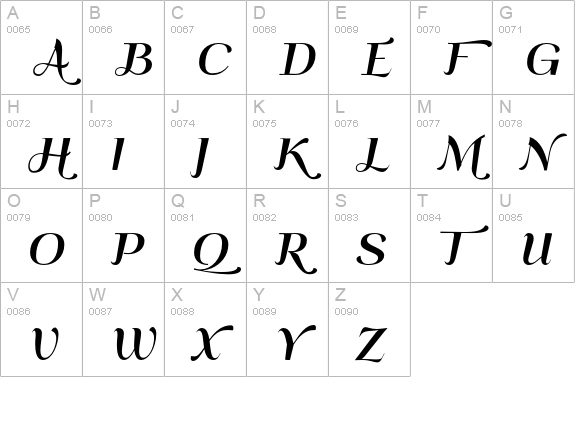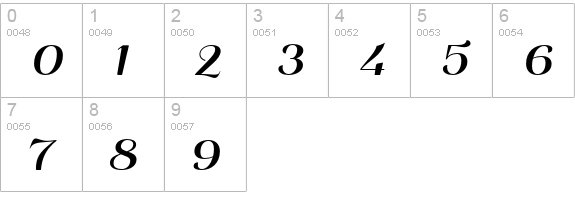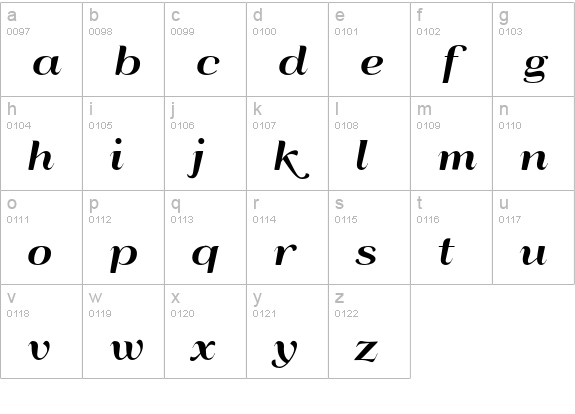
QumpellkaNo12 is a captivating and versatile font that effortlessly combines elegance and playfulness. Its unique design features bold and intricate letterforms, making it perfect for adding a touch of distinction to any project. This free font is a true gem, offering a wide range of possibilities for designers, creatives, and enthusiasts alike. With its smooth curves, balanced proportions, and attention to detail, QumpellkaNo12 brings a sense of sophistication and charm to any typographic composition. Whether you're designing a logo, creating eye-catching headlines, or crafting invitations for a special event, QumpellkaNo12 is sure to make a lasting impression. Its expressive and dynamic nature allows it to adapt to various styles and themes, making it a valuable asset in any designer's toolkit. What makes QumpellkaNo12 even more enticing is the fact that it is freely available to download at FontsMarket.com. This means that you can effortlessly access and incorporate this stunning font into your projects without worrying about any licensing restrictions or fees. It's a rare opportunity to enhance your designs with a high-quality typeface that won't break the bank. So why wait? Take advantage of this amazing offer and elevate your design game with QumpellkaNo12. Let your creativity soar and watch as this remarkable font brings your ideas to life. Download it for free today at FontsMarket.com and unlock a world of possibilities for your next project.